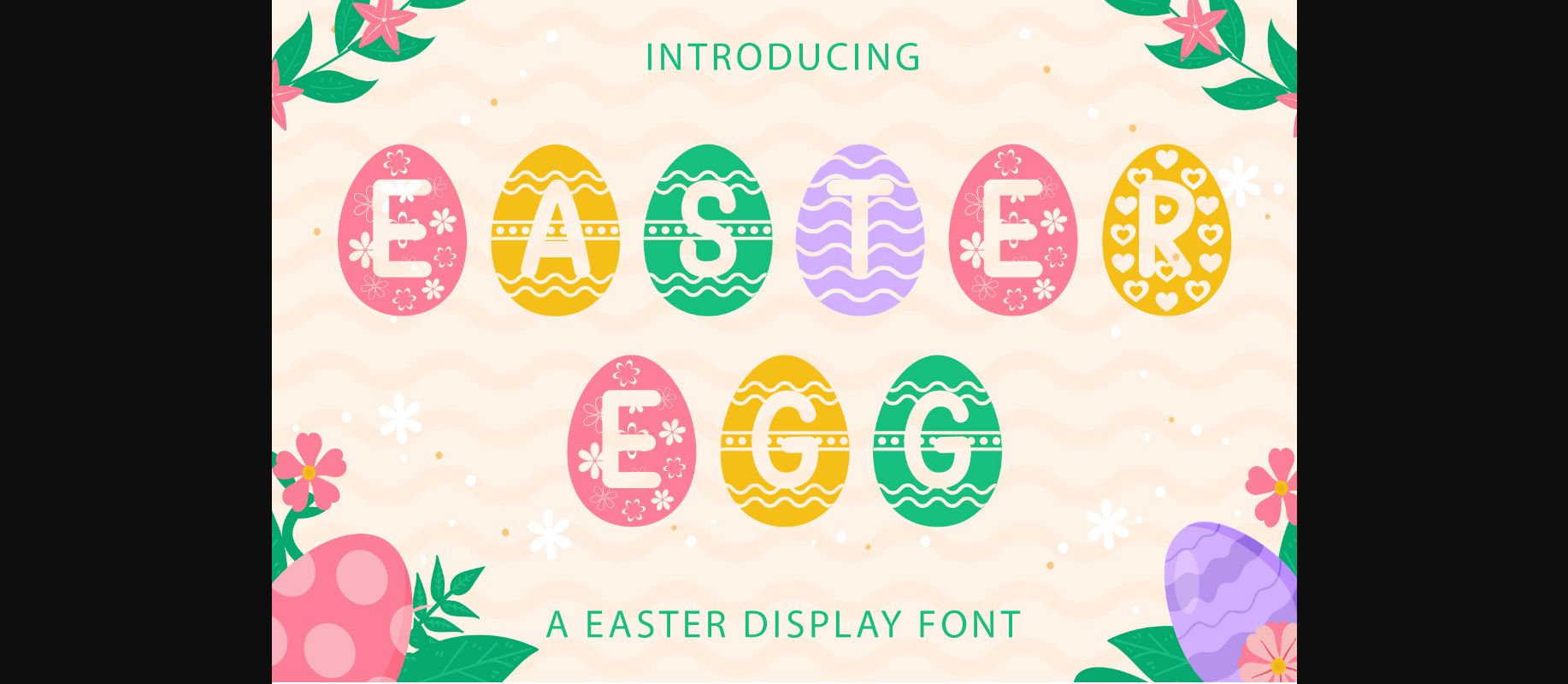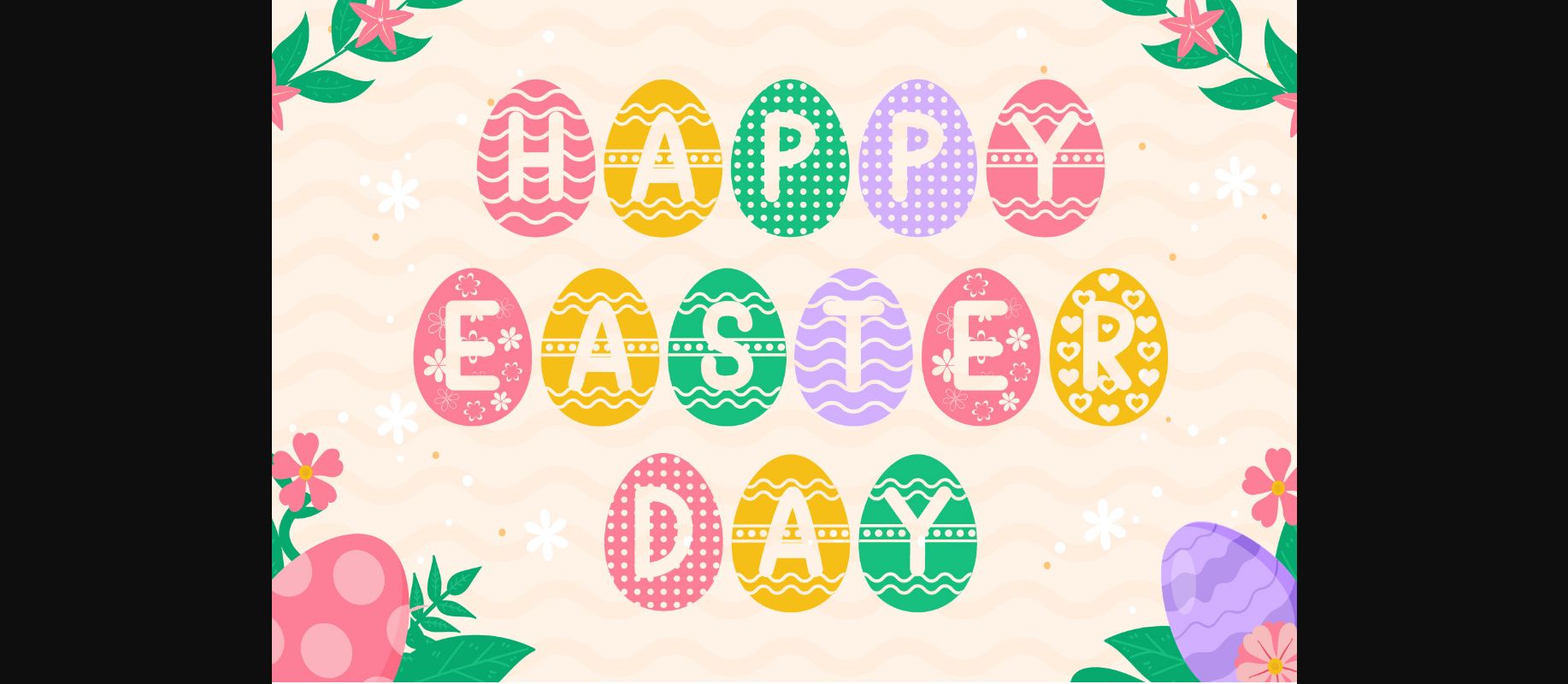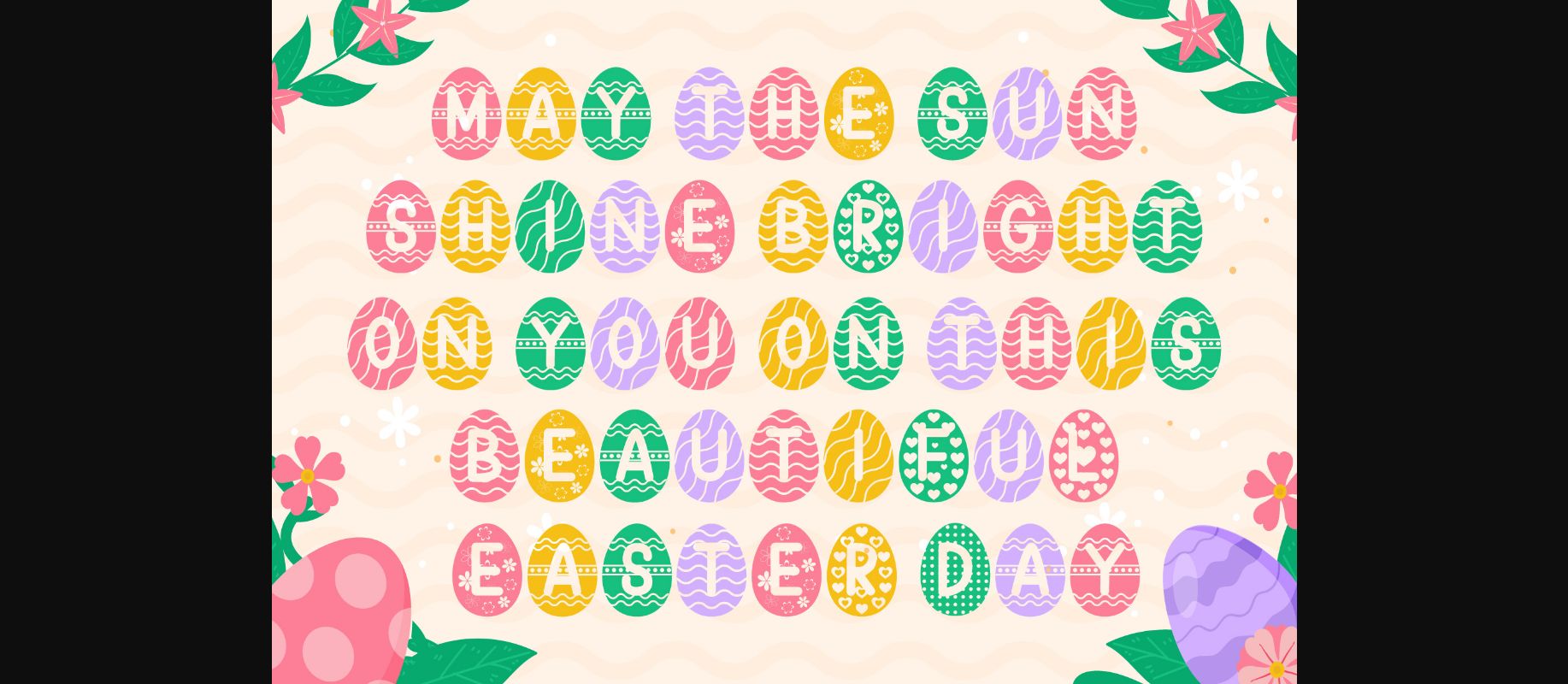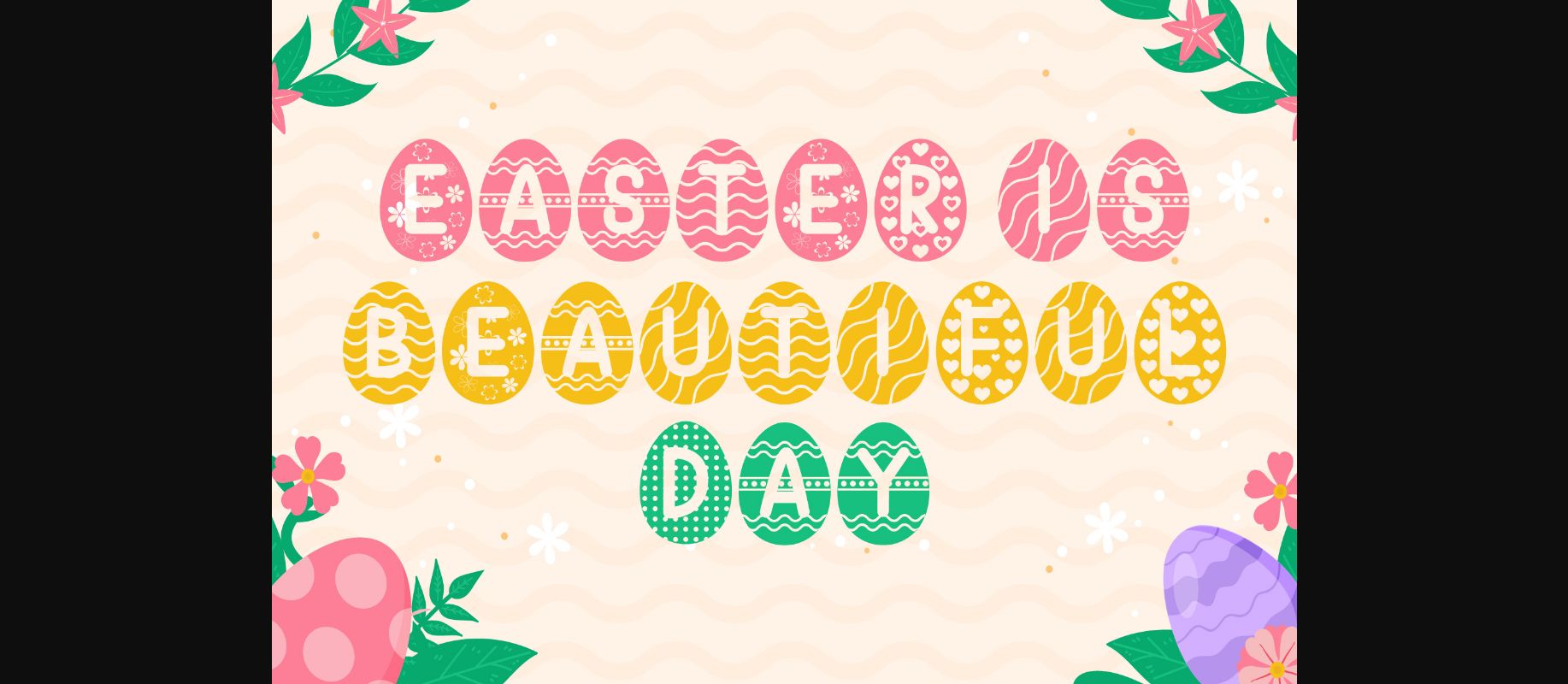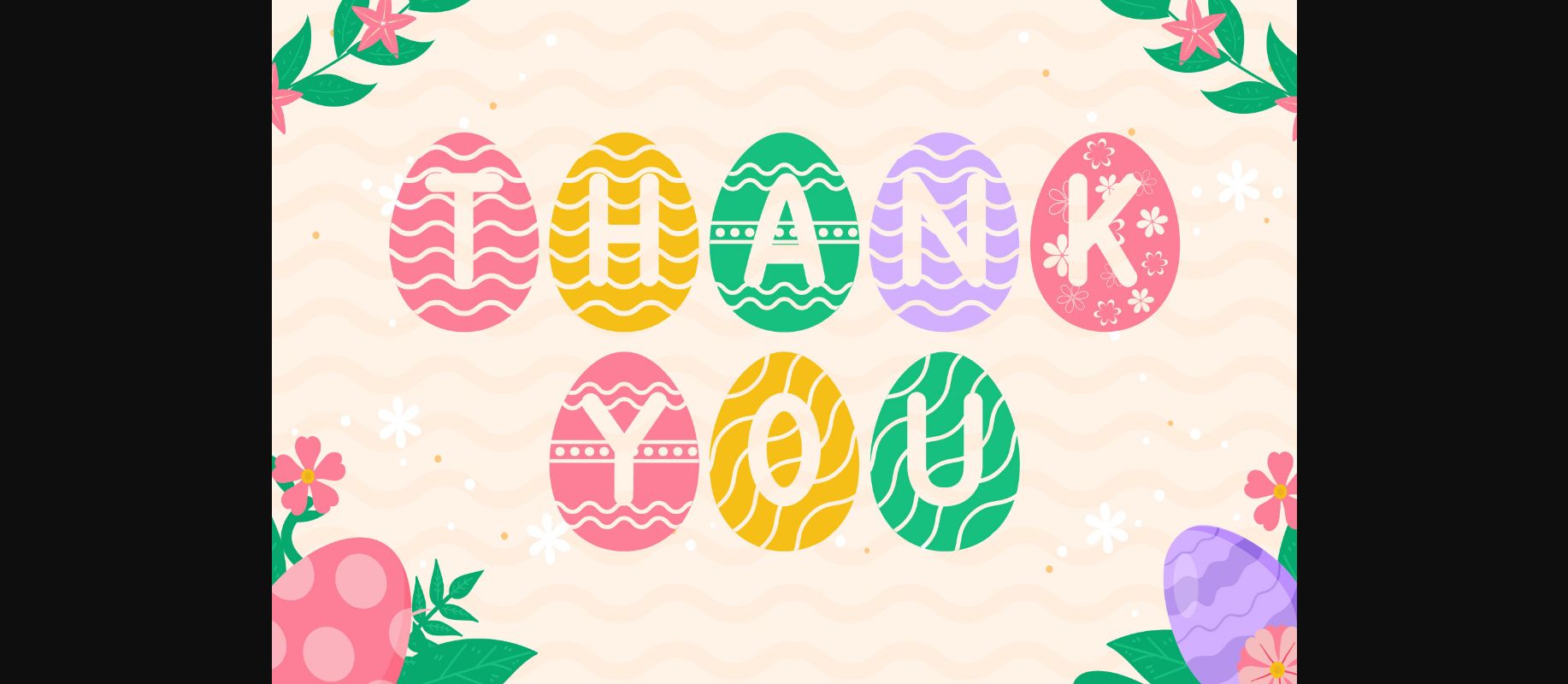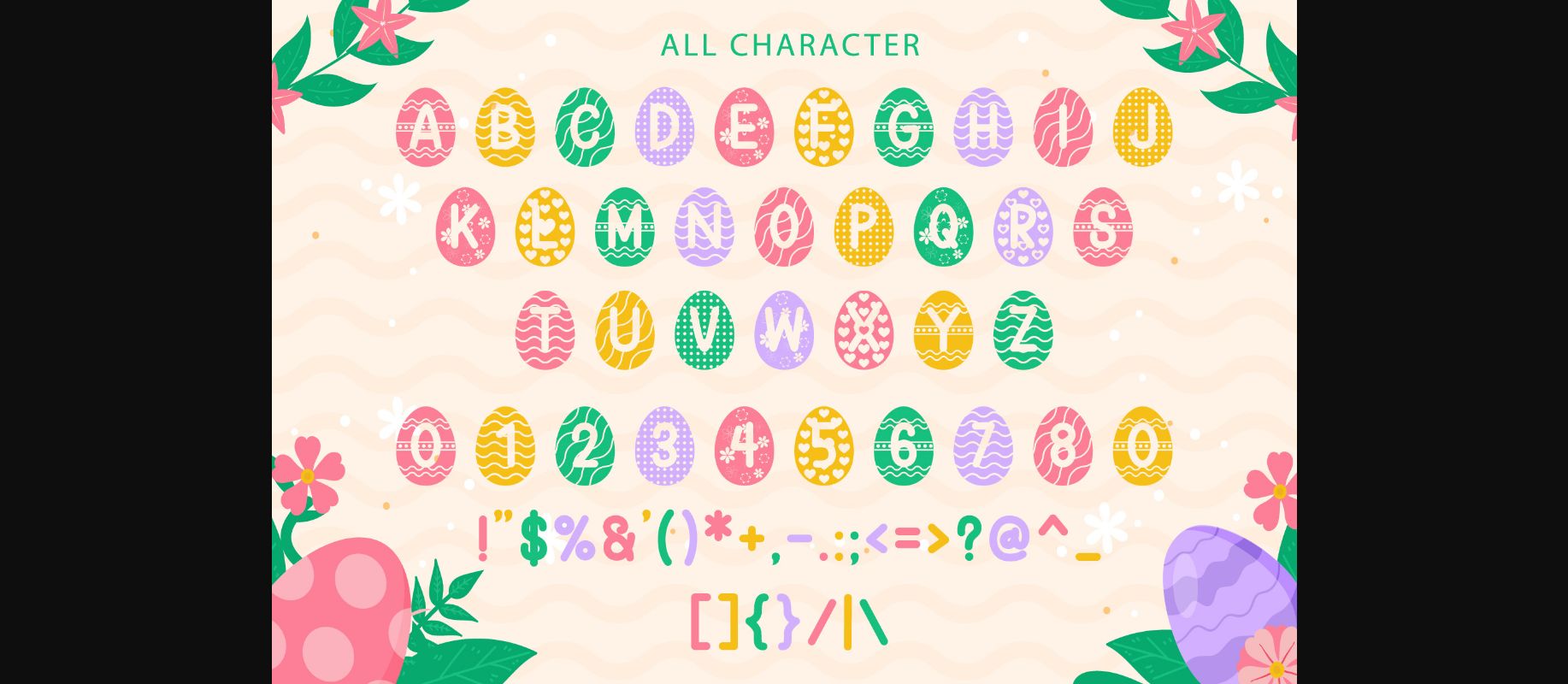
Easter Egg Font
About Easter Egg Font
Easter Egg is a lovely and sweet decorative typeface inspired by the joy of Easter celebrations. Its playful yet elegant design features whimsical curves and charming details reminiscent of decorated eggs. Perfect for invitations, cards, and festive designs, Easter Egg adds a delightful touch to your projects.